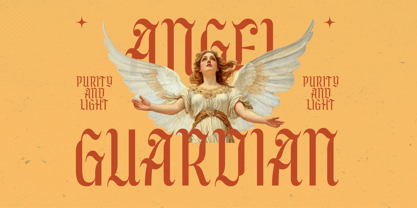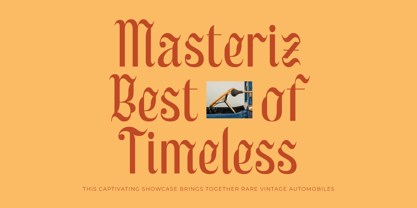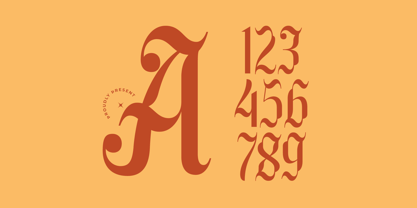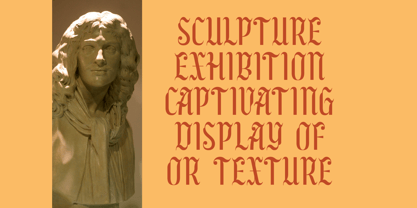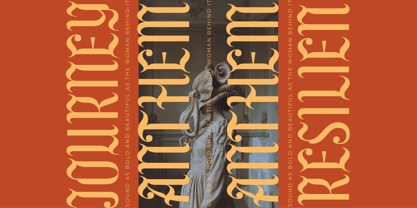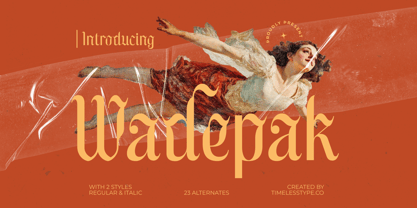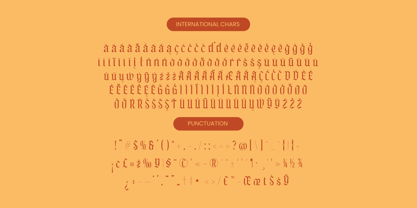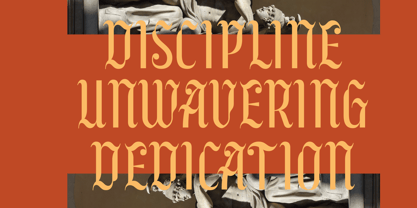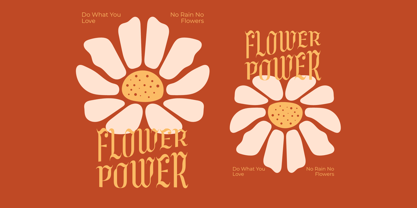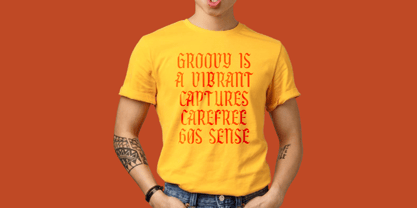
Wadepak
by Timelesstype Studio
The Wadepak Font Family was designed by Heru Utama Putra and published by Timelesstype Studio. Wadepak contains 2 styles and family package options.
Wadepak - Blackletter Display Serif Font , from Timelesstype , Suitable for any projects such as: logos, branding projects, homeware designs, product packaging, mugs, quotes, posters, shopping bags, t-shirts, book covers, name card, invitation cards, greeting cards, label, photography, watermark, special events, and all your other luxury and beautiful projects that need a Luxury Serif taste.
Wadepak